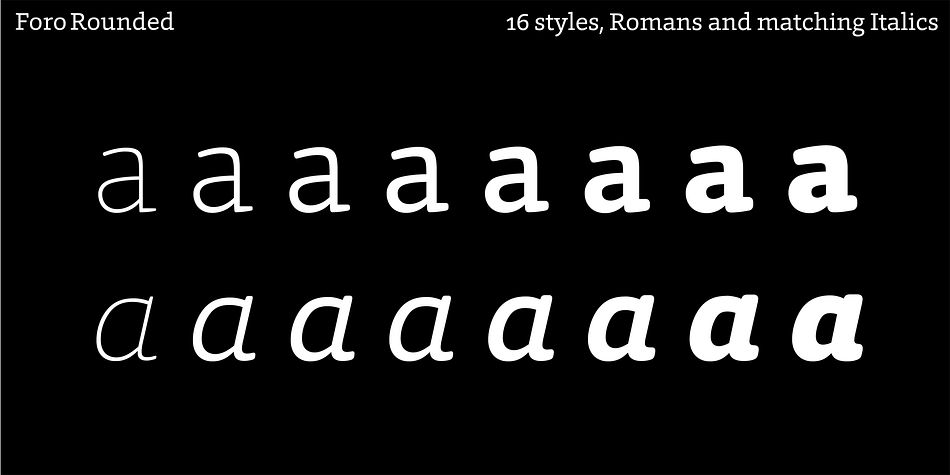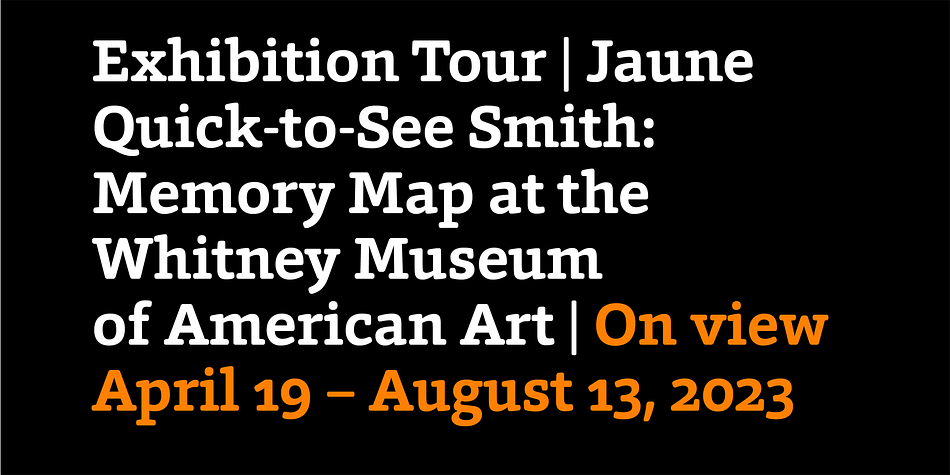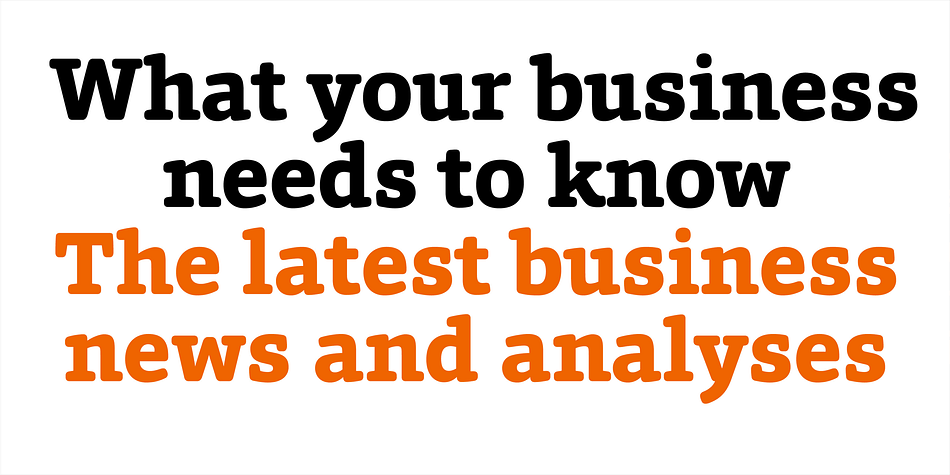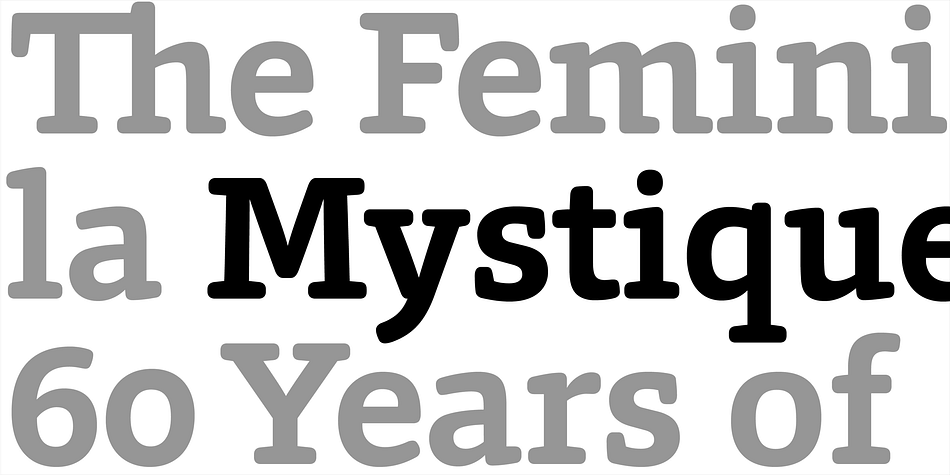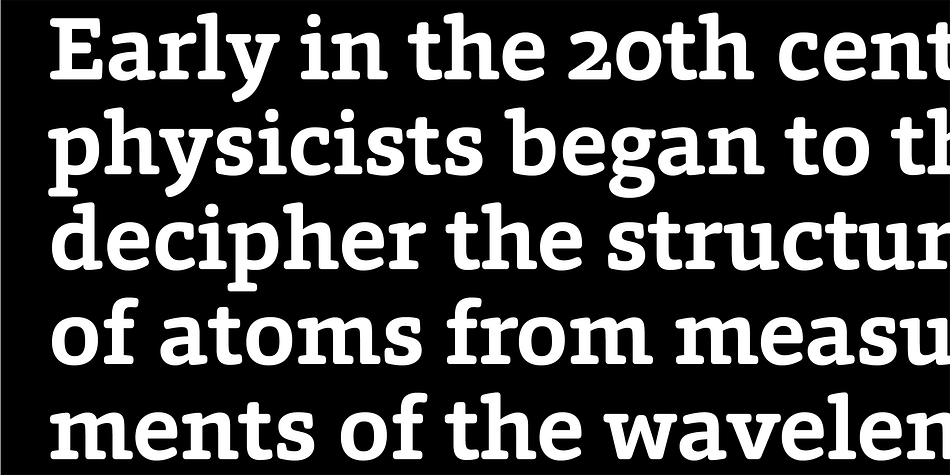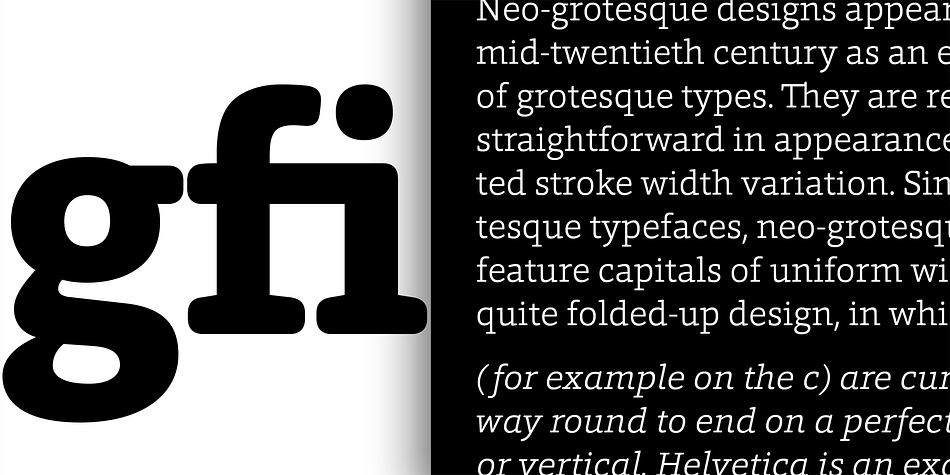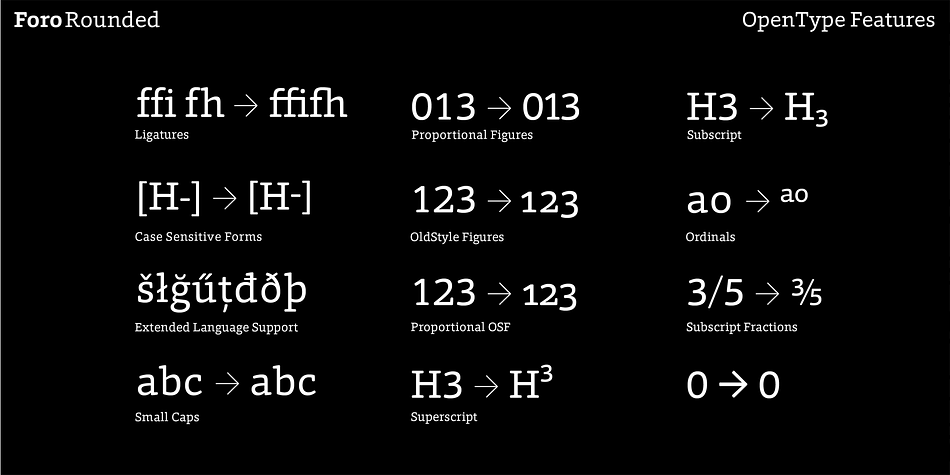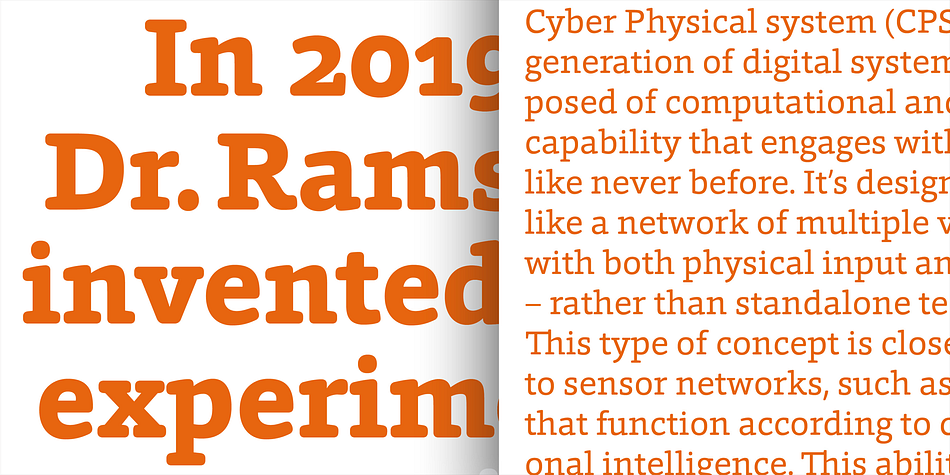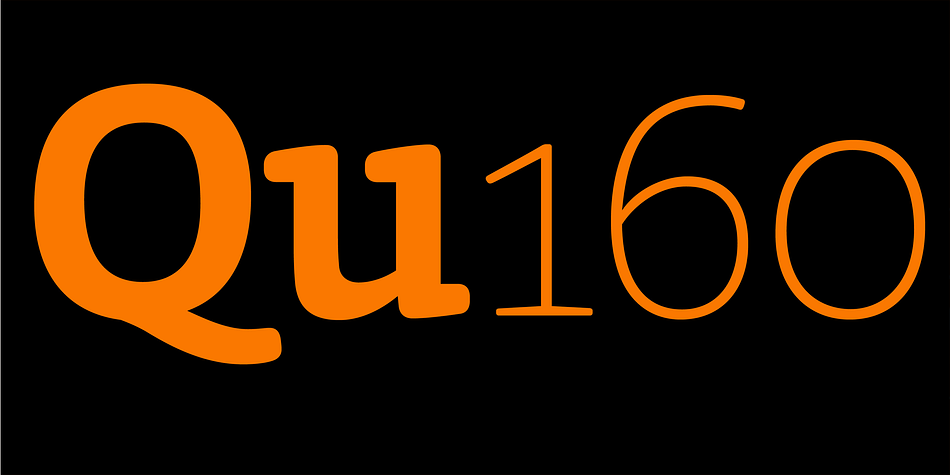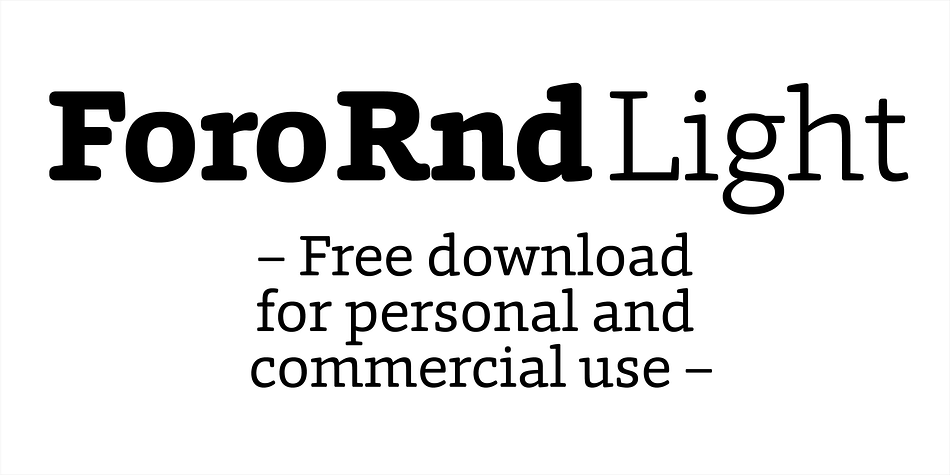
Foro Rounded is a slab serif font family. This typeface has sixteen styles and was published by Hoftype.
Foro Rounded is the softer sister of the successful Foro family. Distinct in appearance, with pleasant haptic, objective, and with graphic appeal.
Foro comes in 16 styles and in OpenType format. All weights contain standard ligatures, proportional lining figures, tabular lining figures, proportional old style figures, lining old style figures, matching currency symbols, fraction- and scientific numerals and arrows. Foro supports Western European, Central and Eastern European languages.